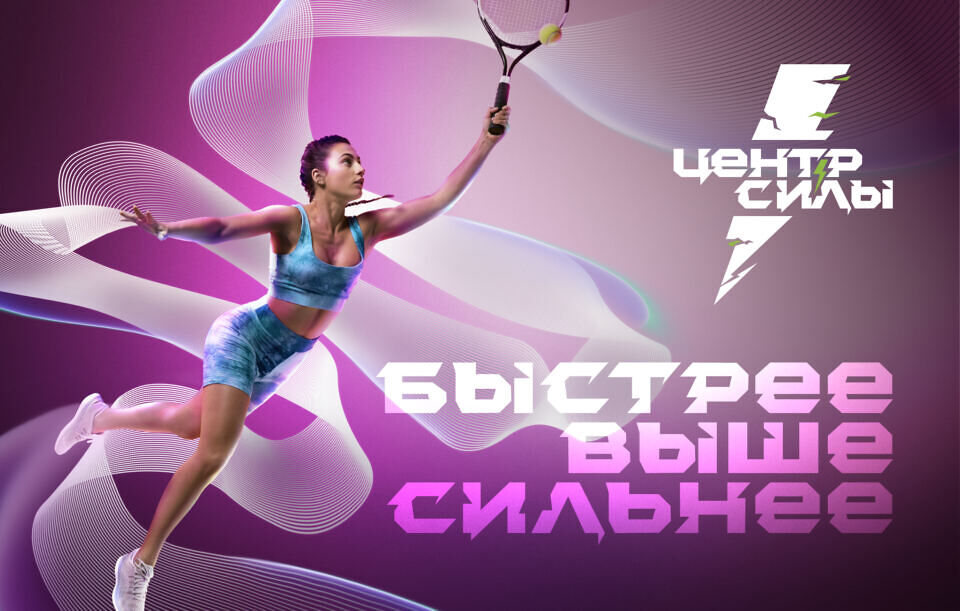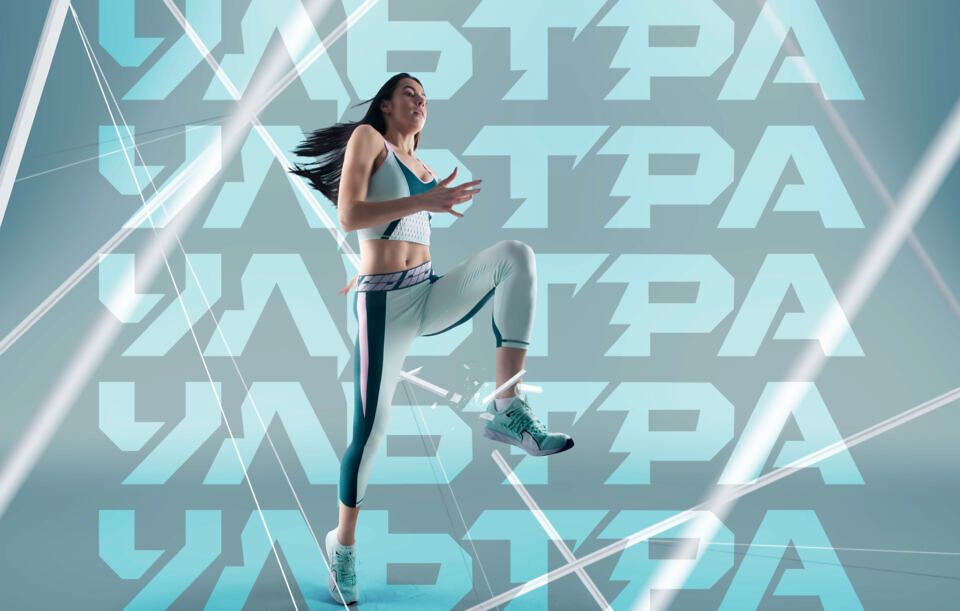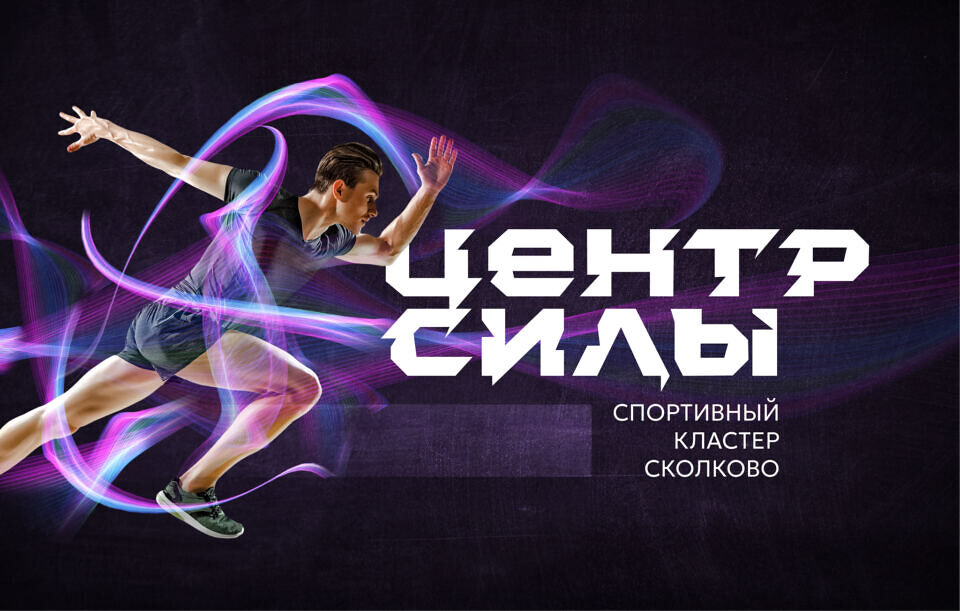
Zenter SP Font
Zenter SP is a heavy, geometric typeface with sharp edges and lightning-like strokes. Its massive forms create a sense of strength and energy, while its broken lines impart a dynamic and technological feel.
The typeface is well suited for logos, posters, sports identities, and any display applications that require a sense of power and speed.